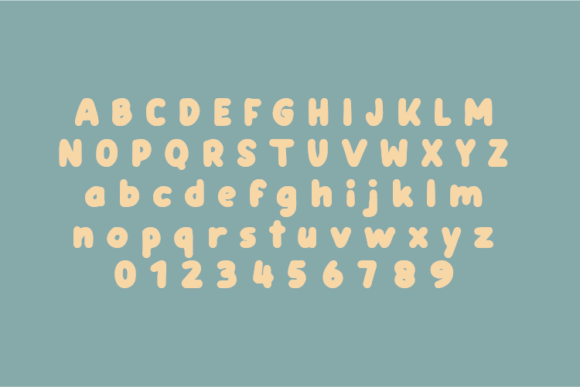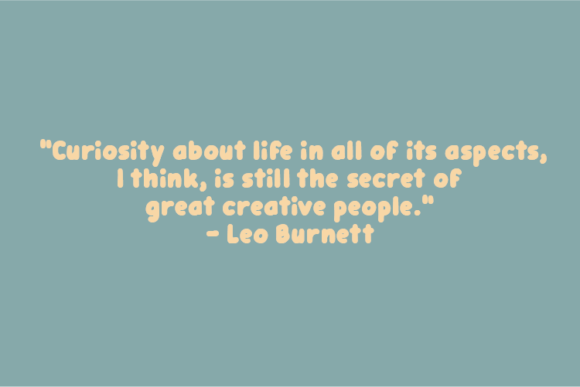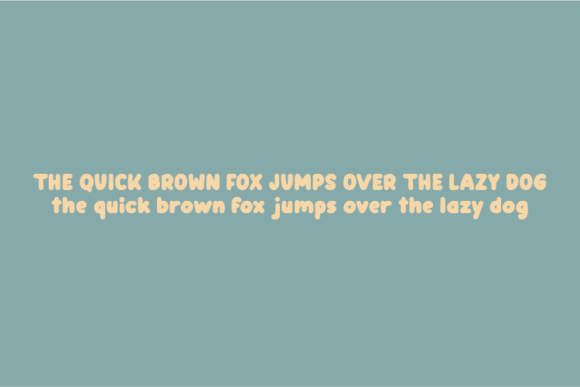
Hazelnut Font: The Ultimate Handwritten Font for Designers and Crafters
Are you tired of using the same old fonts in your designs? Look no further than Hazelnut Font, a beautiful and adaptable handwritten font that’s perfect for a wide range of projects. With its natural and unique style, Hazelnut Font is incredibly fitting for designers and crafters who want to add a personal touch to their work.
What is Hazelnut Font?
Hazelnut Font is a carefully crafted handwritten font that’s designed to be both clean and elegant. Its unique style is inspired by the natural world, making it perfect for designs that require a personal and organic feel. Whether you’re working on a logo, a poster, or a digital project, Hazelnut Font is the perfect choice.
Key Features of Hazelnut Font
- Adaptable: Hazelnut Font is incredibly versatile and can be used in a wide range of designs, from formal to informal.
- Clean and Elegant: The font features clean lines and elegant strokes, making it perfect for designs that require a touch of sophistication.
- Handwritten: Hazelnut Font has a unique, handwritten feel that’s perfect for adding a personal touch to your designs.
- Natural and Unique: The font’s natural and unique style makes it incredibly fitting for designs that require a organic feel.
Why Choose Hazelnut Font?
There are many reasons why Hazelnut Font is the perfect choice for designers and crafters. Here are just a few:
- Endless Possibilities: With Hazelnut Font, the only limit is your imagination! The font’s adaptability and unique style make it perfect for a wide range of designs and projects.
- Add a Personal Touch: Hazelnut Font’s handwritten feel makes it perfect for adding a personal touch to your designs.
- Stand Out from the Crowd: With Hazelnut Font, you can create designs that stand out from the crowd and leave a lasting impression.
Hazelnut Font is perfect for designers and crafters who want to add a personal touch to their work. Whether you’re working on a logo, a poster, or a digital project, Hazelnut Font is the perfect choice. Here are just a few examples of how you can use Hazelnut Font:
- Logos: Use Hazelnut Font to create a unique and memorable logo for your business or brand.
- Posters: Add a personal touch to your posters with Hazelnut Font’s elegant and handwritten style.
- Digital Projects: Use Hazelnut Font to add a touch of sophistication to your digital projects, such as websites, social media graphics, and more.
- Crafting: Hazelnut Font is perfect for crafters who want to add a personal touch to their projects, such as handmade cards, scrapbooking, and more.
In conclusion, Hazelnut Font is a beautiful and adaptable handwritten font that’s perfect for designers and crafters. With its natural and unique style, Hazelnut Font is incredibly fitting for a wide range of designs and projects. Whether you’re looking to add a personal touch to your work or create designs that stand out from the crowd, Hazelnut Font is the perfect choice. So why wait? Try Hazelnut Font today and see the endless possibilities for yourself!